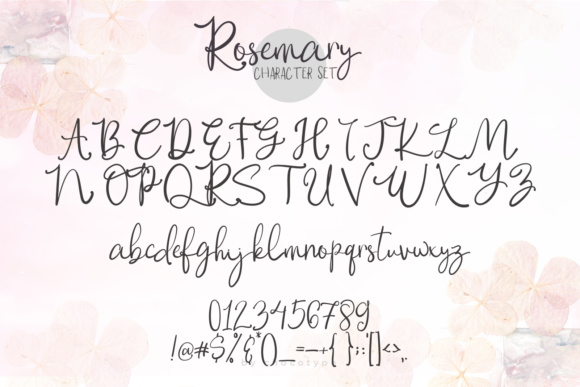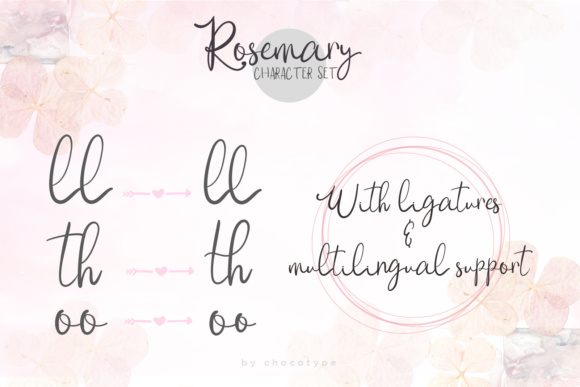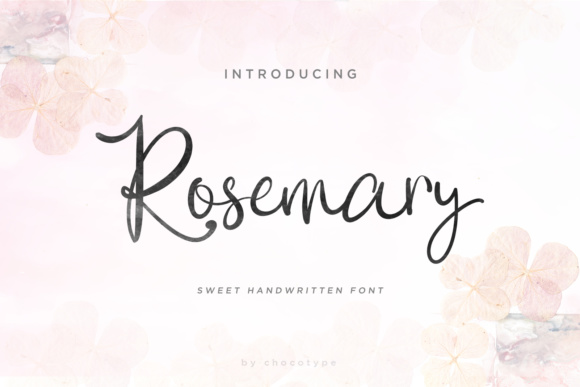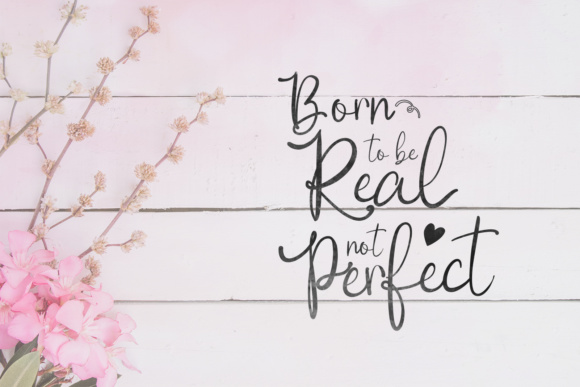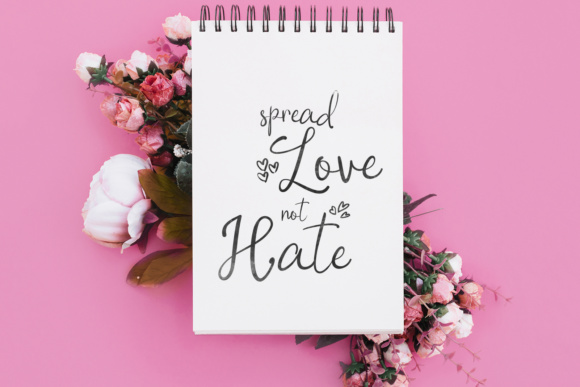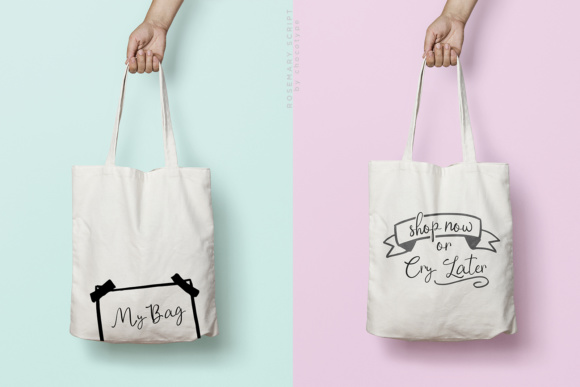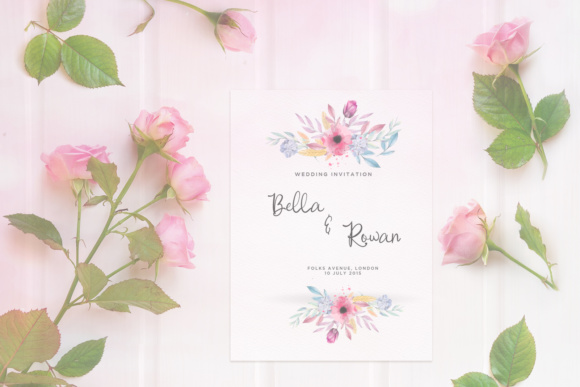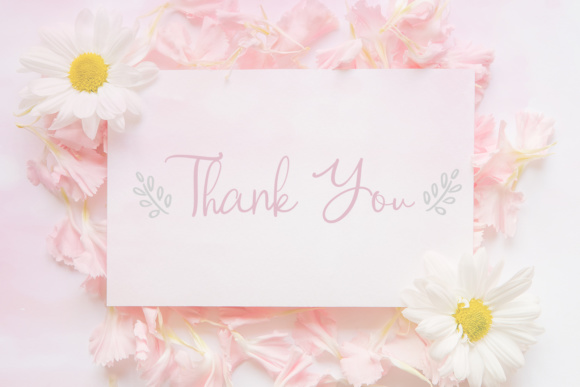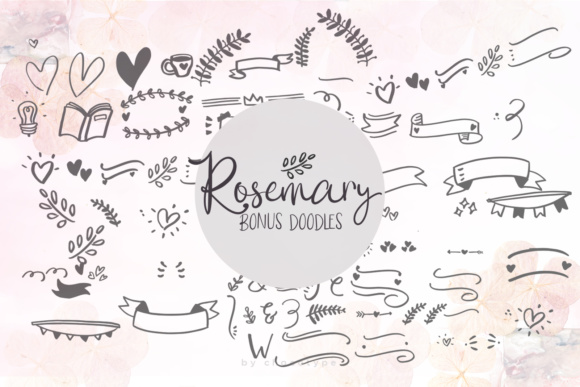
Rosemary Script Font
About Rosemary Script Font
The Rosemary is a handmade typeface with cute characters and a very bouncy baseline.
Rosemary Script has a large variety of alternate characters and includes fun doodles as a bonus,allowing you to make each word look completely unique to the next!